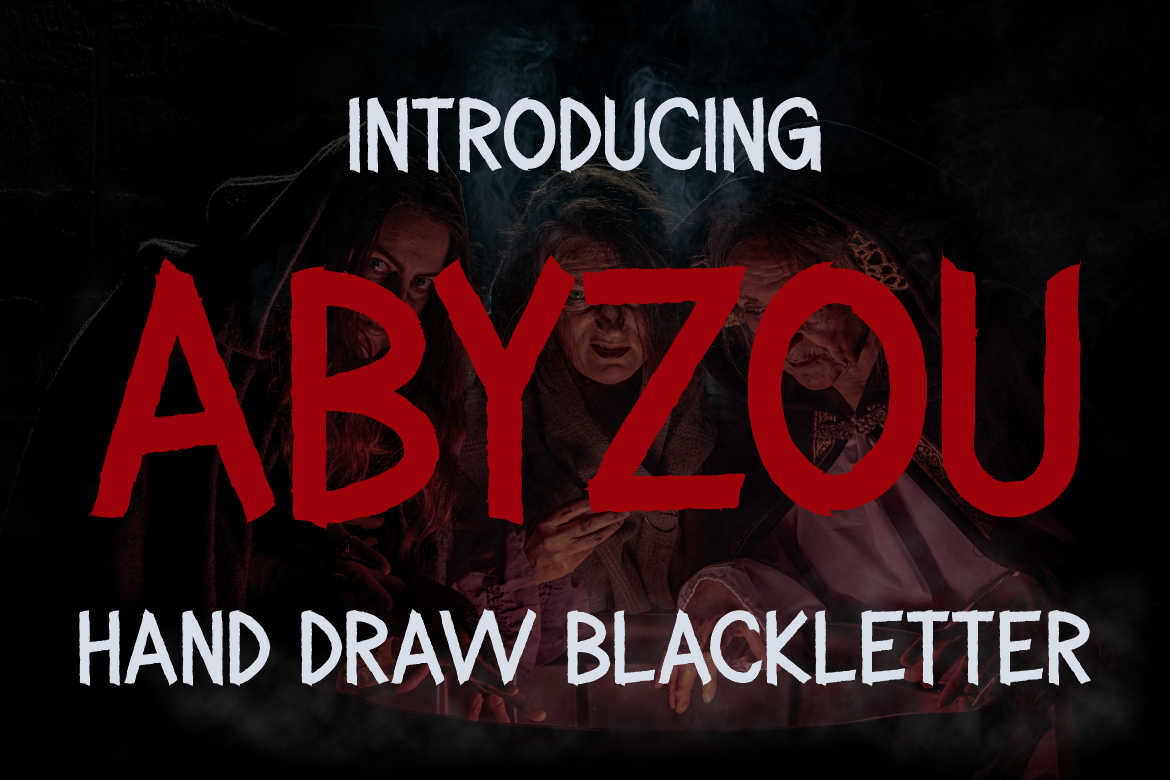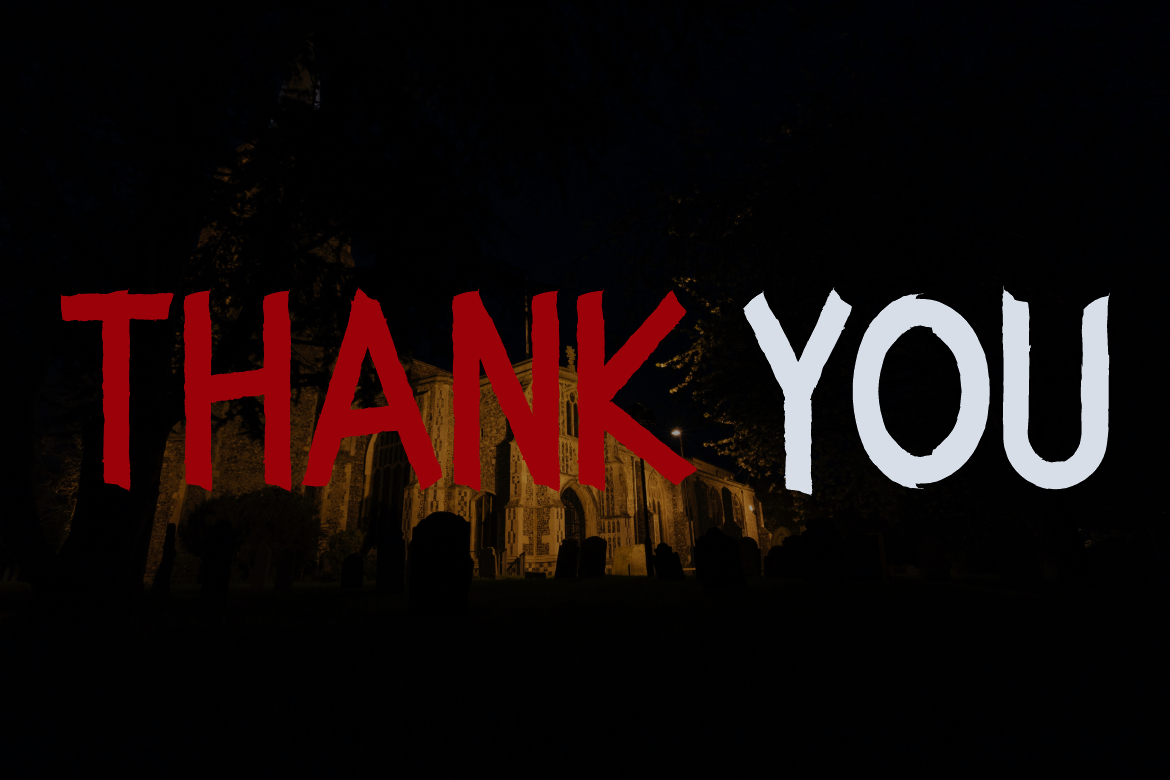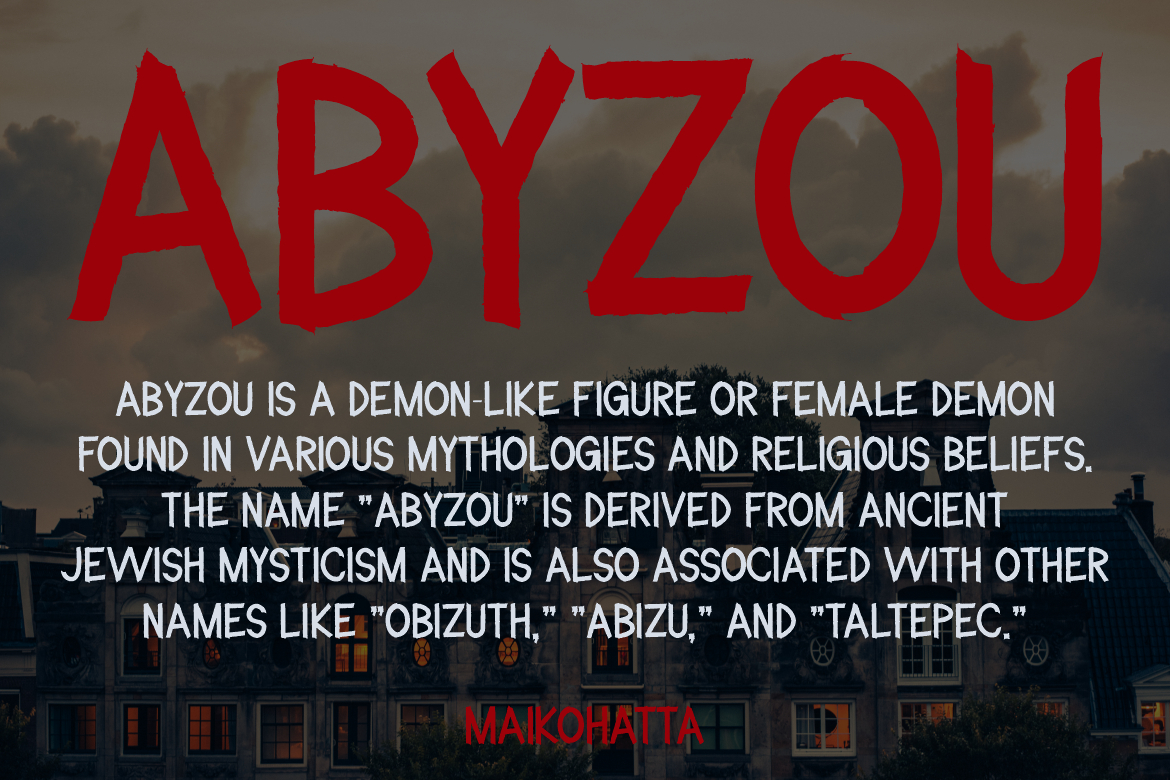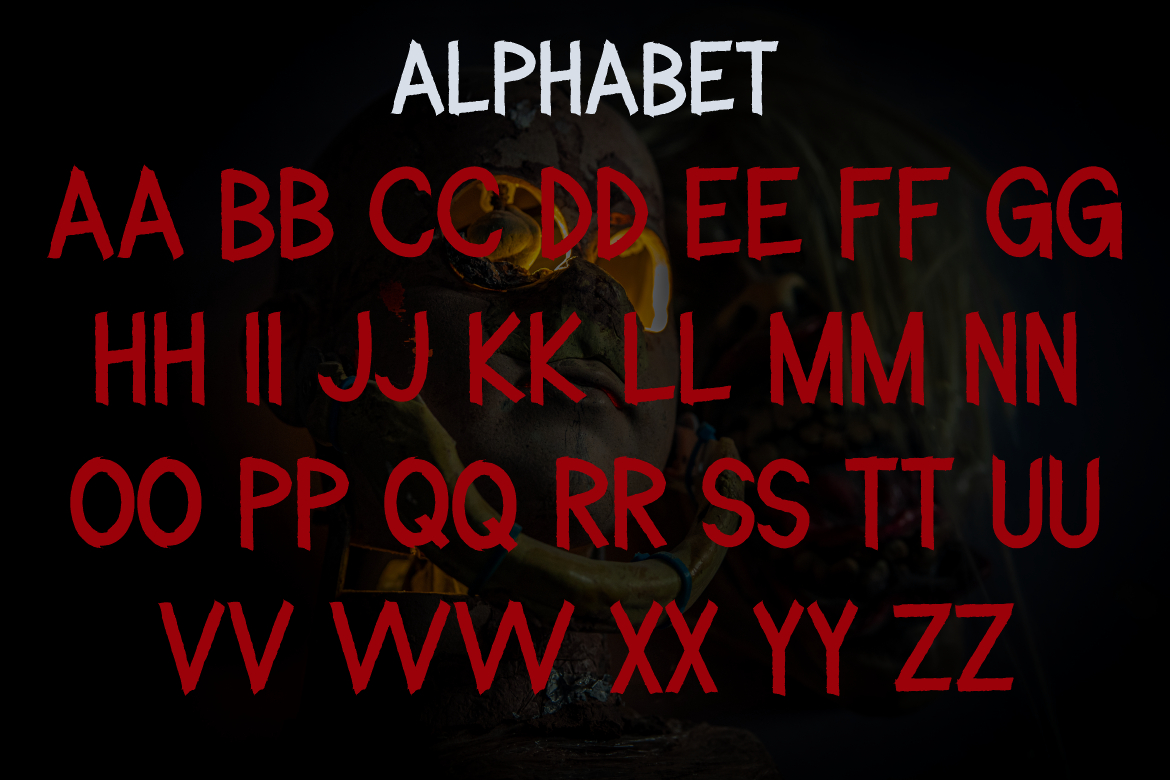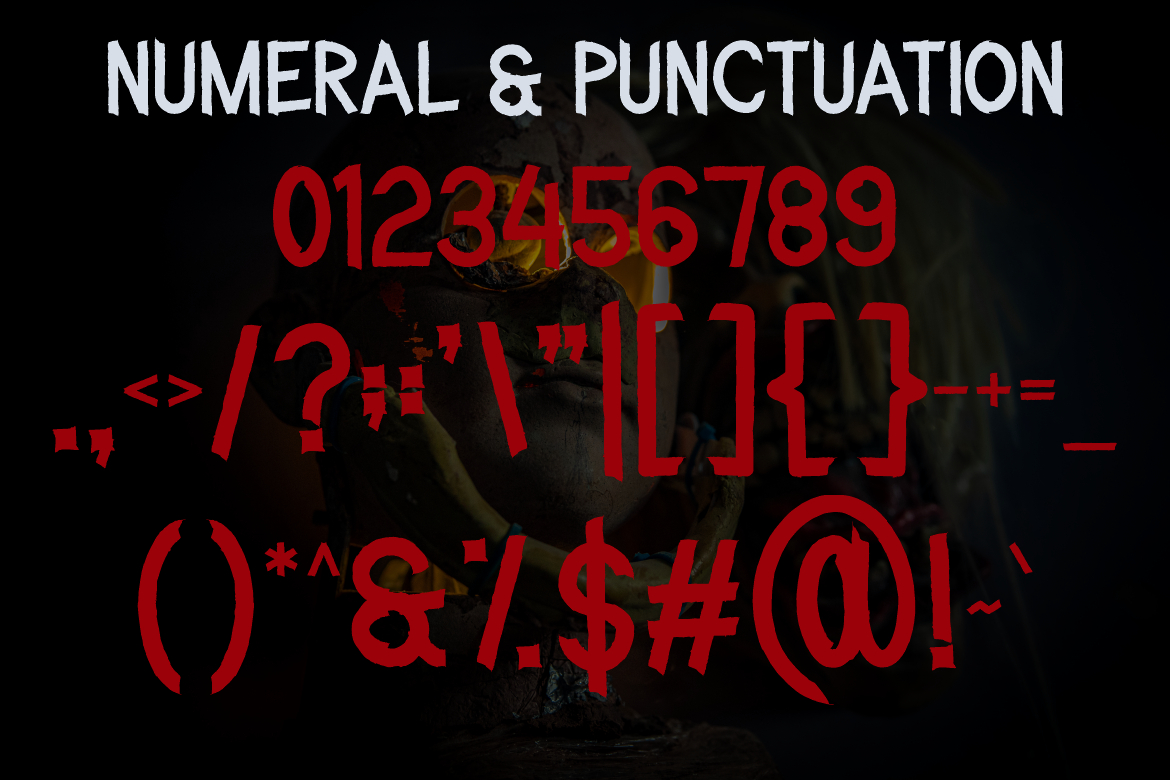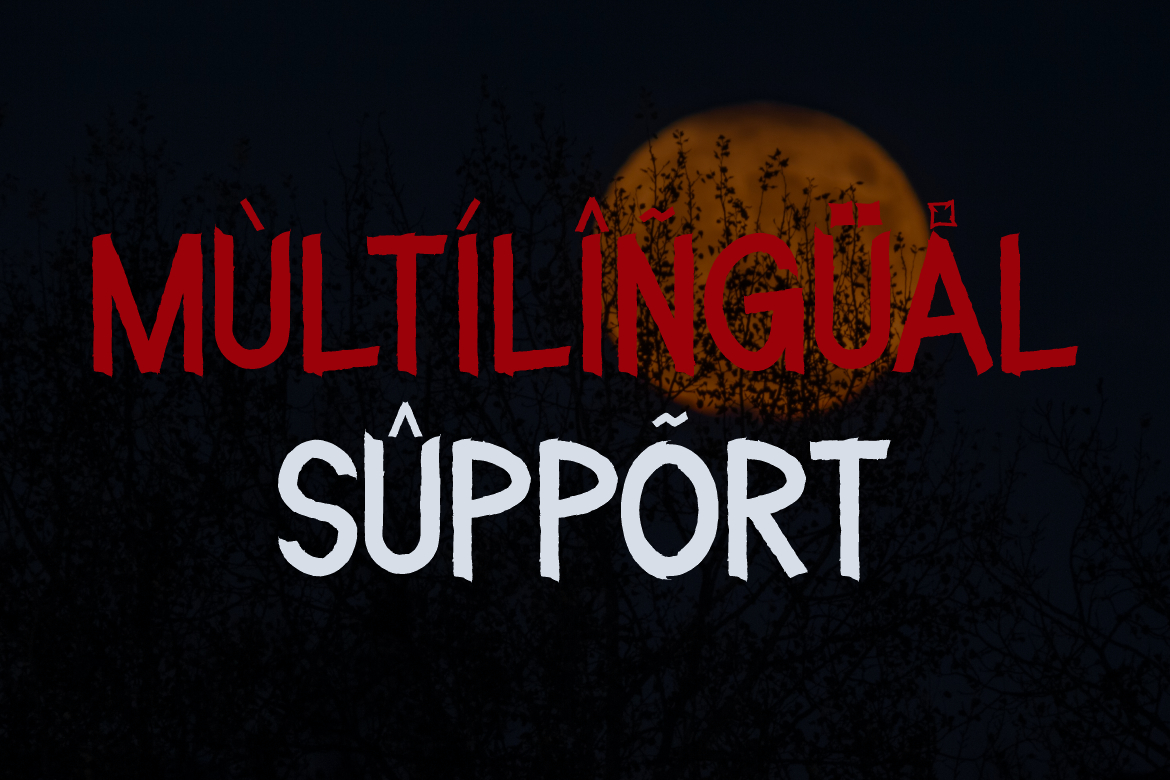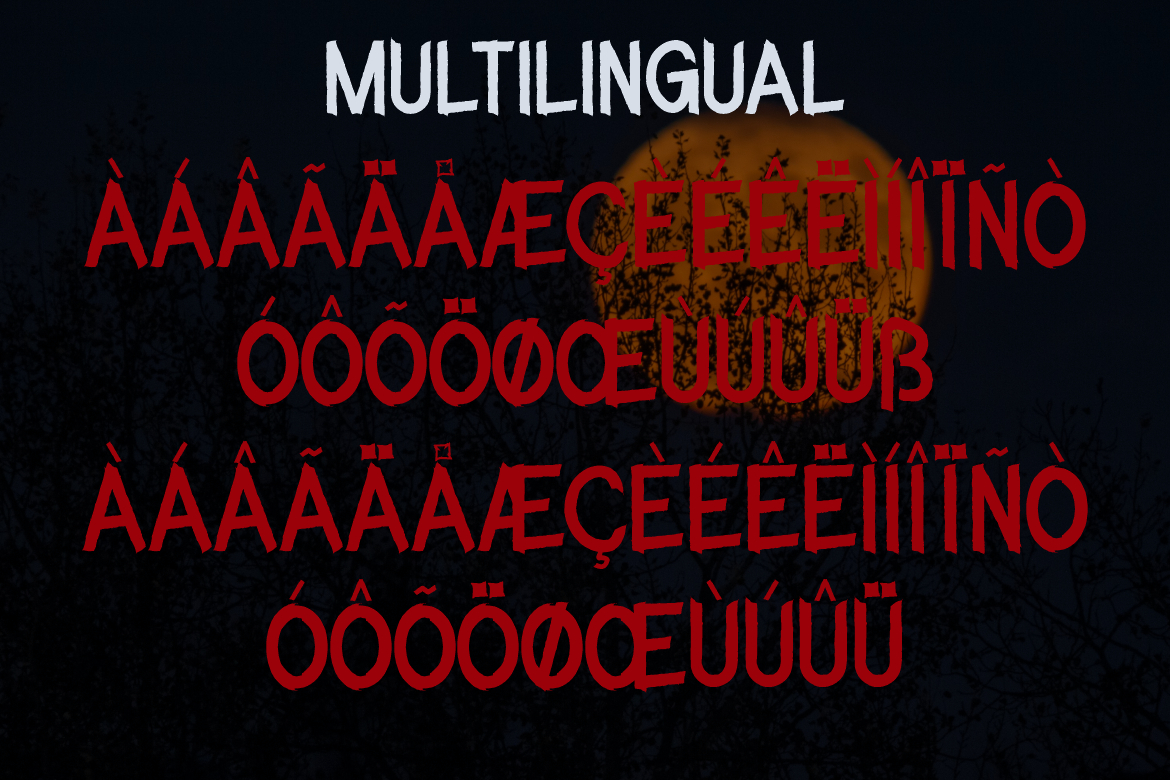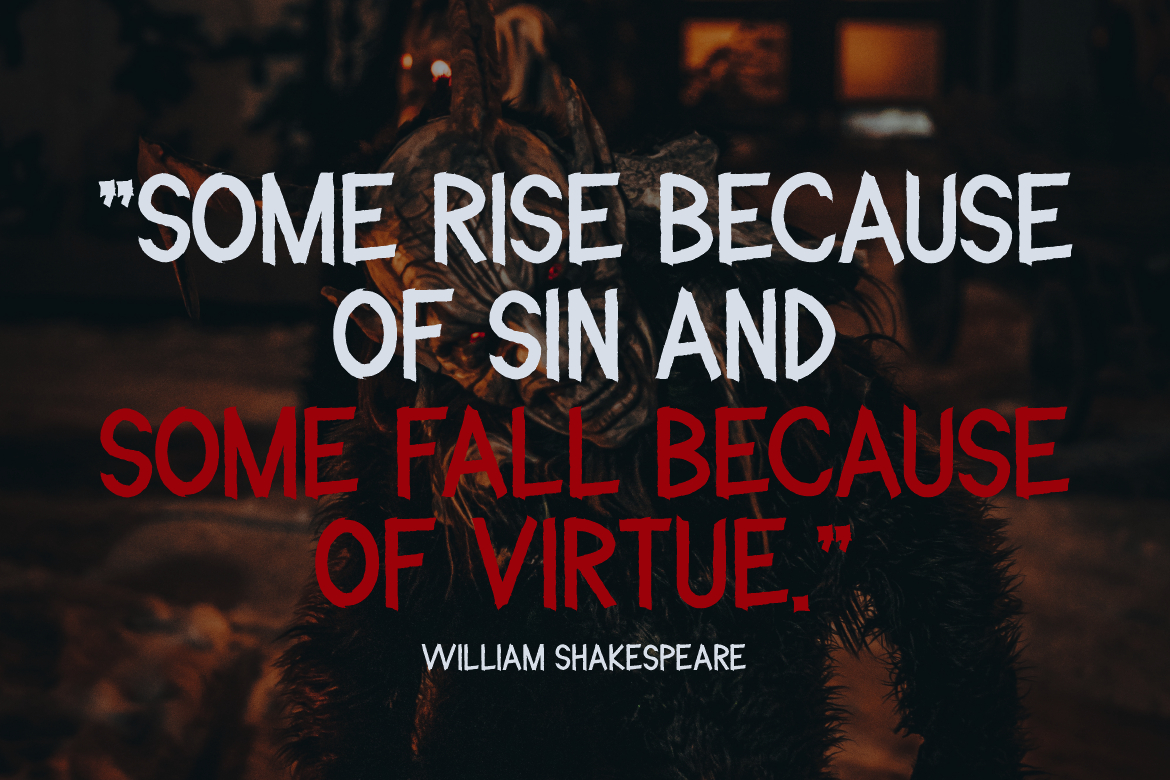
Abyzou Font
About Abyzou Font
**Abyzou Font** Hand draw Blackletter
**Abyzou Font** is a distinct, highly detailed, and Horror Metal font. It would make a great choice for exquisite retro-urban designs, tattoo business branding, logos, vintage designs, and more.